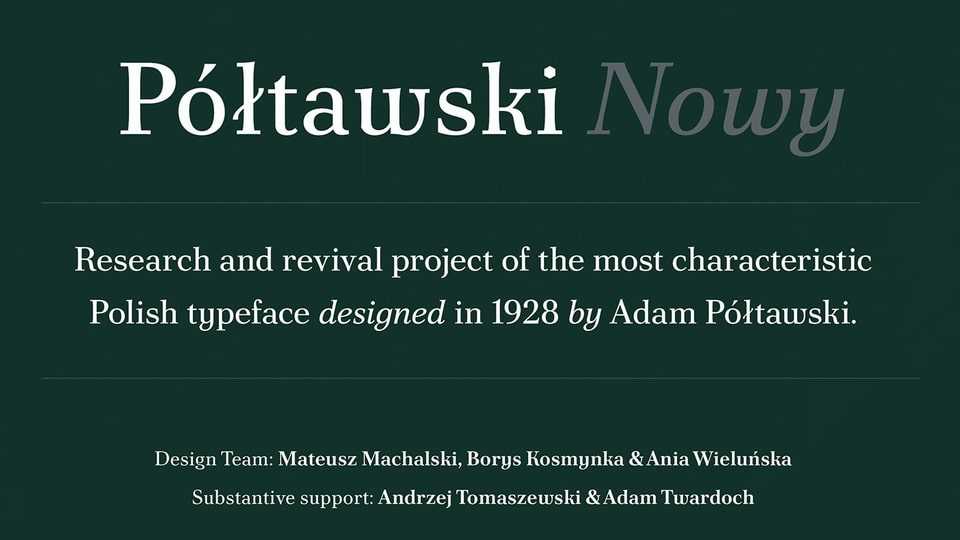
Poltawski Nowy Typeface › Fontesk
Download Półtawski Nowy font, a digitization project the Antykwa Półtawskiego typeface. A key aspect of the design of the digital version of the typeface from 1928 was the approach to the issue of developing the shape of characters from sources.
Designer: Mateusz Machalski